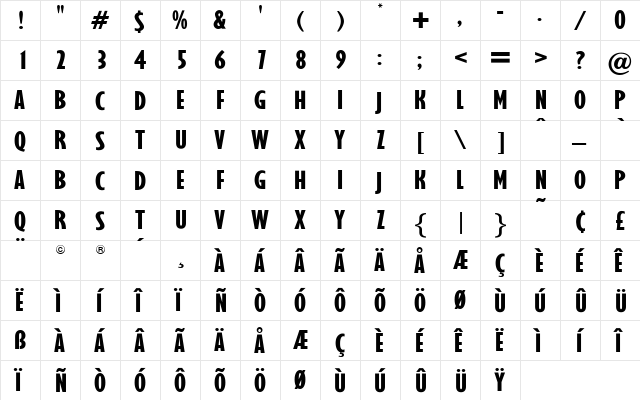
OPTIGibby-XBoldXCondHeads Bold Font Preview
Design Context for OPTIGibby-XBoldXCondHeads Typeface
OPTIGibby-XBoldXCondHeads is a composed and adaptable typeface that performs quietly and consistently across a wide range of design contexts. The heavy weight commands attention and anchors typographic hierarchies. The condensed width makes it efficient for tight spaces without sacrificing legibility.